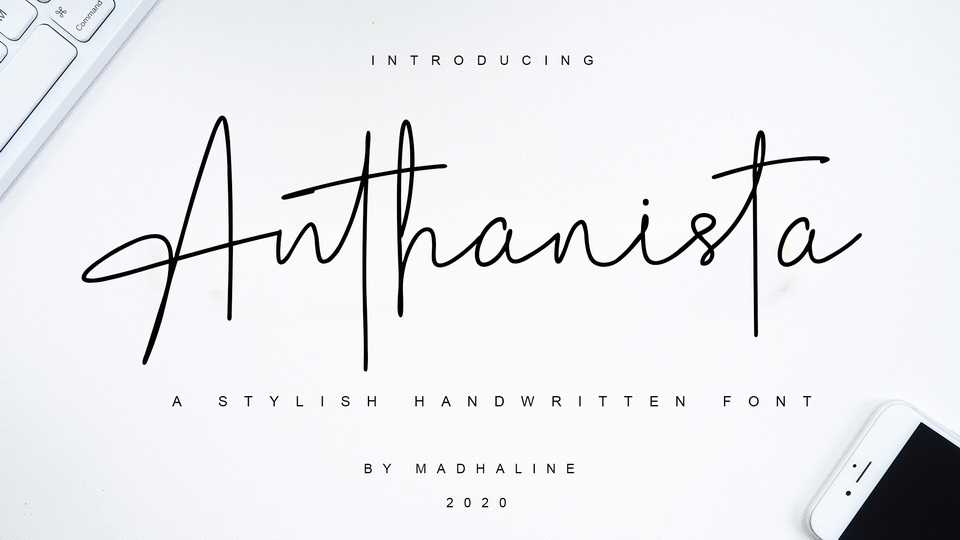
Download Anthanista font, a stylish handwritten typeface with a dynamic flow. Anthanista would perfect for photography watermark, social media posts, advertisements, logos and branding or anything that need handwriting taste.
Designer: MadhalineStudio